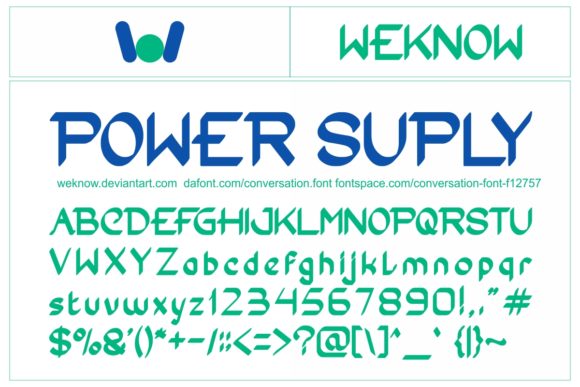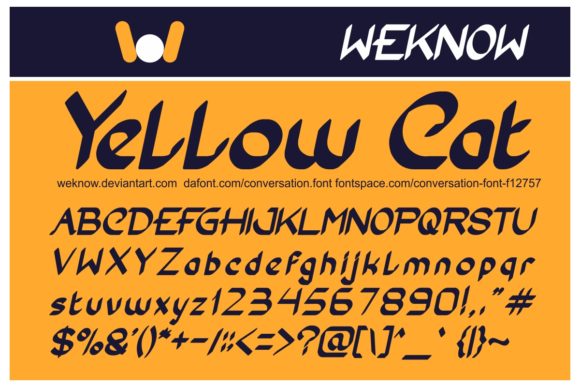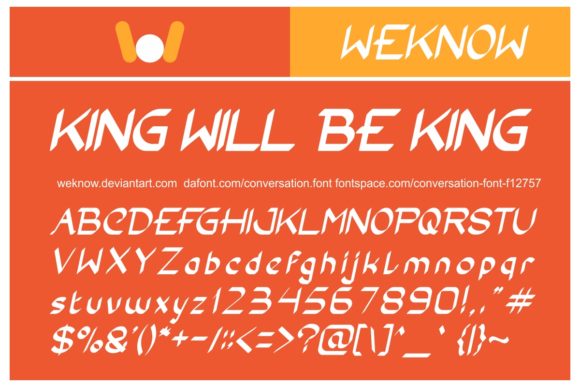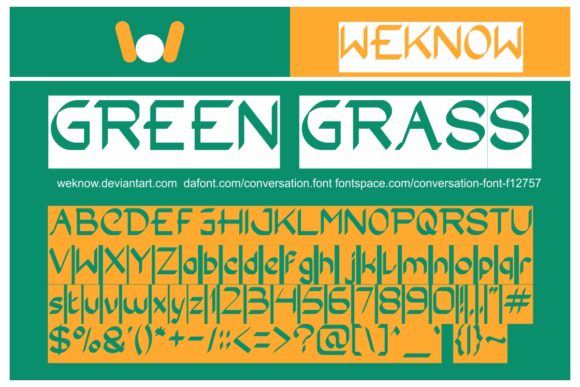
The Power of Conversation Font: Elevate Your Designs with a Modern Handwritten Twist
I’ll never forget the time I was working on a branding project for a trendy new coffee shop. My client wanted a font that was both modern and approachable, but I was struggling to find the perfect fit. That’s when I stumbled upon Conversation Font, a simple yet stunning handwritten font that instantly caught my eye. In this article, I’ll share my experience with Conversation Font, its features, and how to make the most of it in your designs.
An Honest Review of Conversation Font
So, what makes Conversation Font so special? Here are some things I love about it:
- ✨ Modern feel: Conversation Font has an incredibly modern feel that will instantly elevate your designs.
- ✅ Easy to read: Despite its handwritten nature, Conversation Font is surprisingly easy to read, even at smaller sizes.
- 💡 Versatile: This font is perfect for a wide range of design projects, from branding and advertising to packaging and digital media.
Of course, no font is perfect, and Conversation Font has a few small quirks:
- 🤔 Limited character set: While Conversation Font has a wide range of characters, it may not have every special character or glyph you need.
- ⚠️ Not suitable for body text: Due to its handwritten nature, Conversation Font is best used for display text or headings, rather than body text.
The Story Behind Conversation Font
Conversation Font was designed by a talented typographer who wanted to create a font that was both modern and approachable. Inspired by everyday conversations and the way people communicate, this font is perfect for designers who want to add a touch of personality to their work.
| Font Name | Conversation Font |
| Author | weknow |
| What is Conversation Font? | Conversation Font is a simple and minimalist handwritten font with a modern feel. |
| What are some common uses for Conversation Font? | Conversation Font is perfect for display text, headings, and titles. It’s commonly used in branding, advertising, packaging, and digital media. |